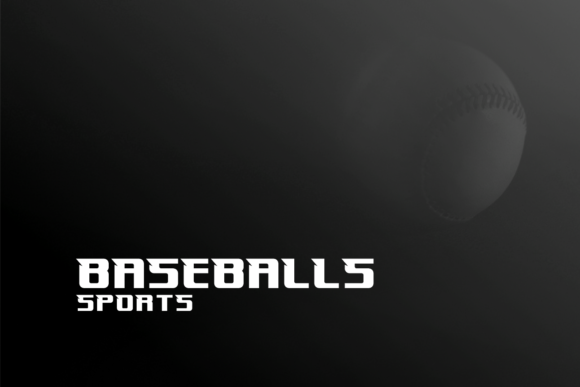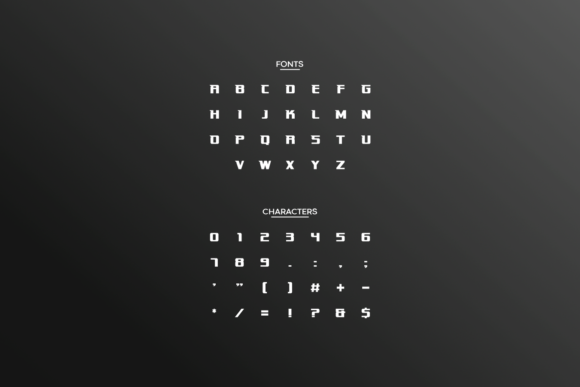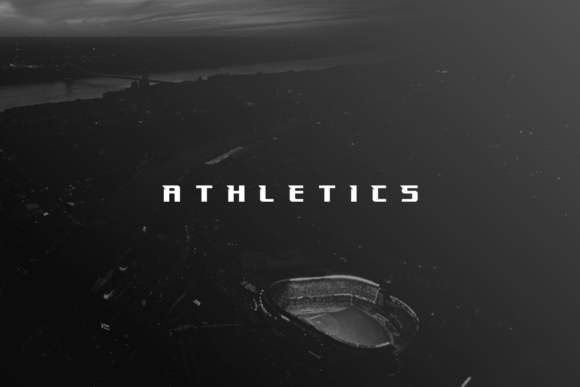
Bekanco Font: The Perfect Blend of Sporty and Professional
In the world of typography, fonts play a crucial role in conveying the tone and personality of a design. For designers and crafters looking for a font that exudes a sense of sportiness while maintaining professionalism, Bekanco Font is an excellent choice. This simple and modern display font has been gaining popularity for its unique charm and versatility.
What is Bekanco Font?
Bekanco Font is a display font designed with a sports theme in mind. Its firm shape and sporty appearance make it an ideal choice for designs that require a bold and dynamic look. However, what sets Bekanco apart is its ability to blend seamlessly with formal and playful designs, making it a versatile font for various creative projects.
Key Features of Bekanco Font
- Simple and Modern Design: Bekanco Font boasts a clean and contemporary design that makes it perfect for headlines, titles, and other display purposes.
- Sports Theme: The font’s sporty appearance is evident in its bold lines and dynamic curves, giving it a fresh and energetic feel.
- Professional Look: Despite its sporty vibe, Bekanco Font maintains a level of professionalism that makes it suitable for corporate designs, branding, and marketing materials.
- Versatility: Bekanco’s unique charm allows it to mix and match with both formal and playful designs, making it a valuable addition to any designer’s font library.
Use Cases for Bekanco Font
Bekanco Font’s versatility makes it suitable for a wide range of design projects. Here are some use cases where Bekanco Font can shine:
- Sports Branding: Bekanco Font is perfect for sports-related branding, such as logos, jerseys, and equipment designs.
- Marketing Materials: The font’s professional look makes it suitable for marketing materials, including brochures, flyers, and posters.
- Web Design: Bekanco Font can be used to create stunning website headers, titles, and other display elements.
- Social Media Graphics: The font’s sporty and playful vibe makes it ideal for social media graphics, including Instagram posts, Facebook covers, and Twitter headers.
Tips for Using Bekanco Font
To get the most out of Bekanco Font, here are some tips to keep in mind:
- Experiment with Font Sizes: Bekanco Font looks great in various font sizes, from large display fonts to smaller body text.
- Pair with Other Fonts: Bekanco Font pairs well with other fonts, so don’t be afraid to experiment with different font combinations.
- Play with Colors: The font’s bold lines and dynamic curves make it perfect for use with bright and bold colors.
Bekanco Font is a versatile and modern display font that offers a unique blend of sportiness and professionalism. Its firm shape, sporty appearance, and charming personality make it an excellent choice for designers and crafters looking for a font that can add a dynamic touch to their designs. With its endless possibilities, Bekanco Font is sure to become a staple in any designer’s font library.